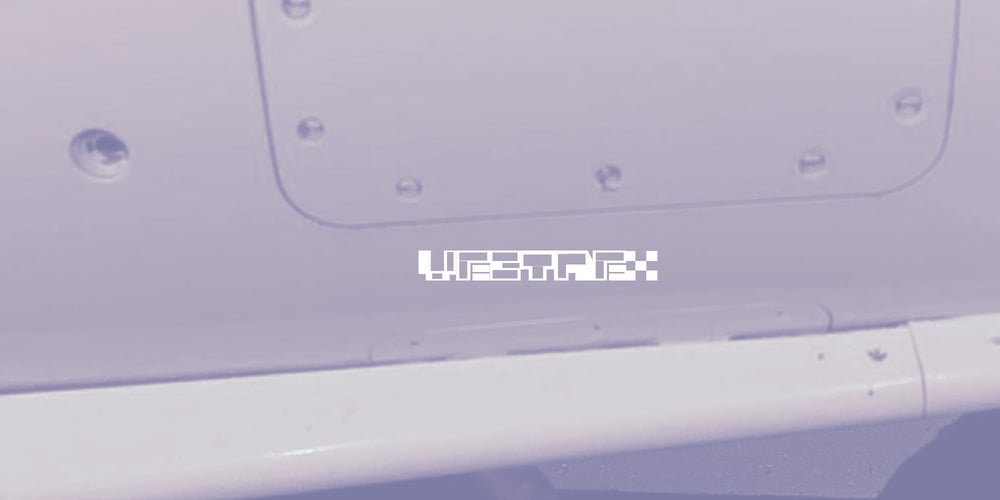
Vectrex Light Font Family was designed by Mitch Greer and published by Atorie. Vectrex Light contains 1 styles and family package options. Think of Vectrex as a kind of Industrial Robot of the future. The typeface is built for heaviness, with a hidden sense of elegantness and improvisation underneath the thick forms and varied outlines.